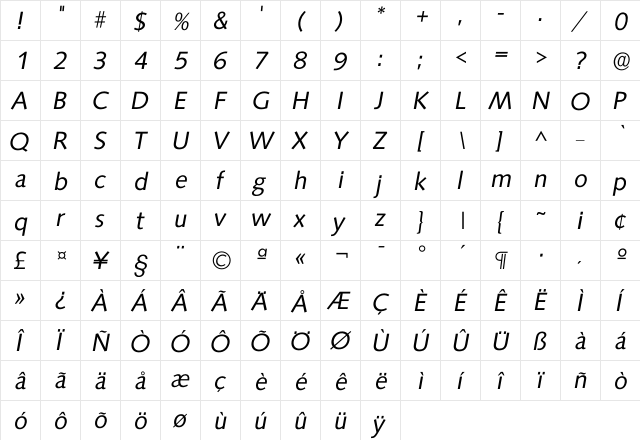
Isaxony Regular
Design Context for Isaxony Typeface
Isaxony takes a measured approach to typography — its balanced proportions and neutral character make it a reliable workhorse for both digital and print work.